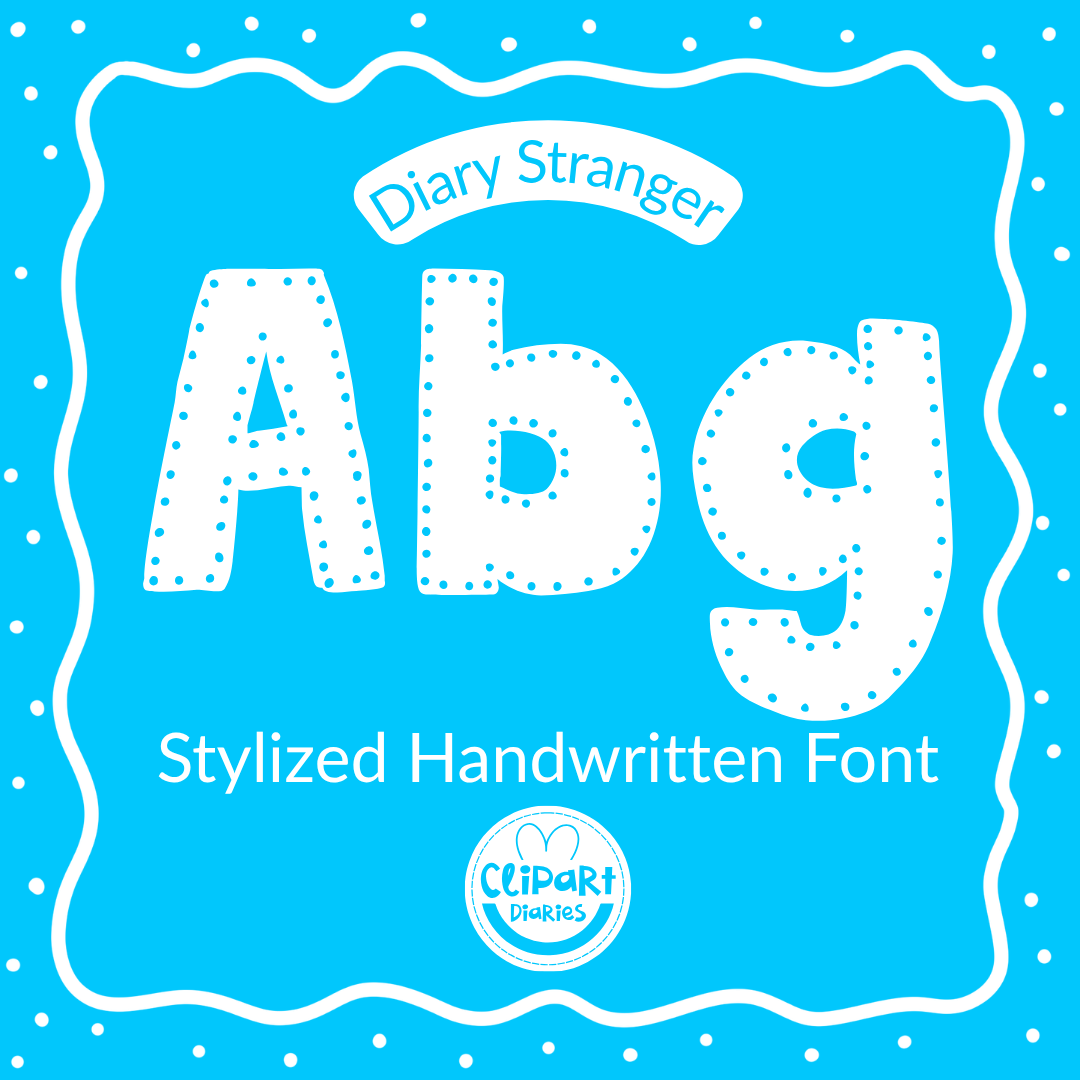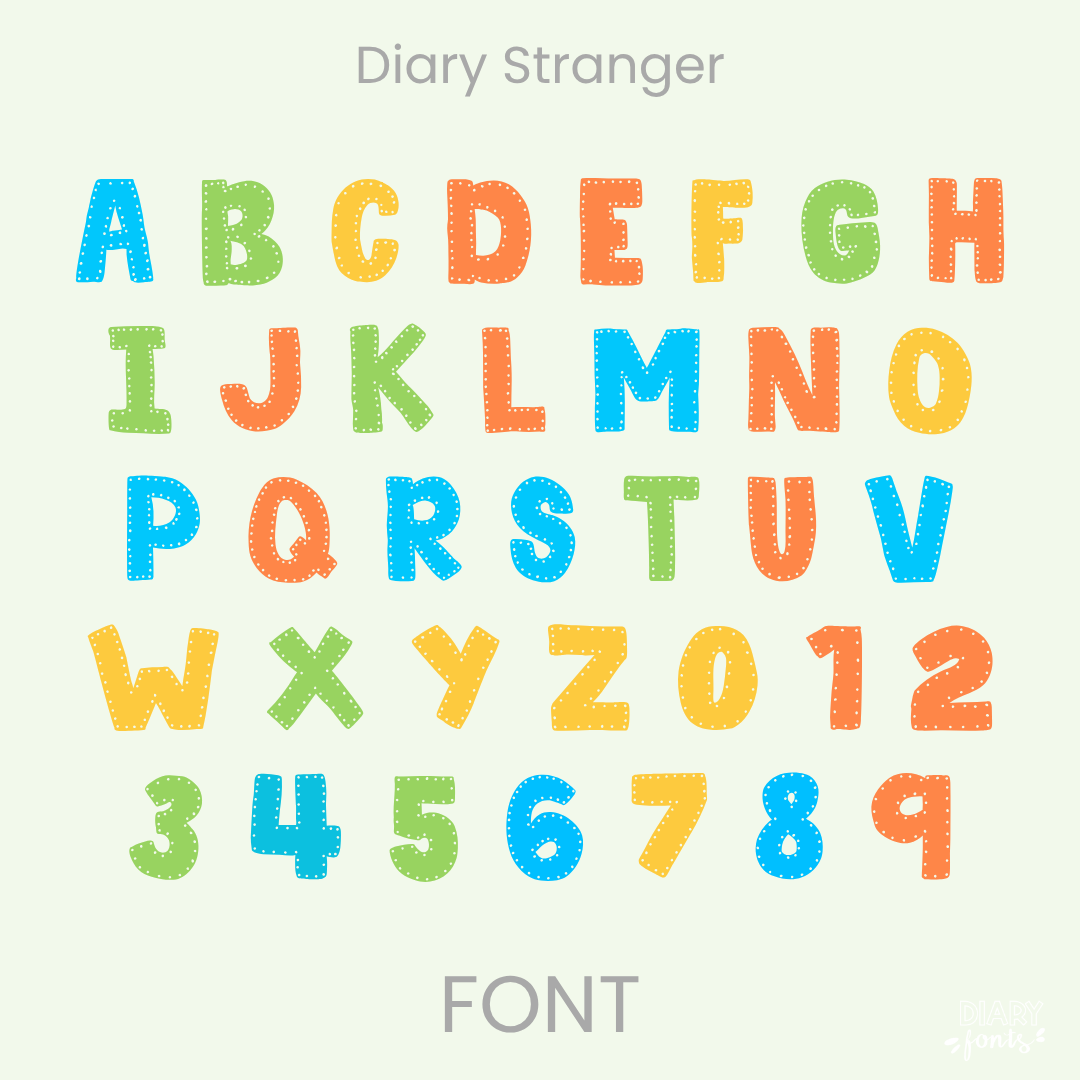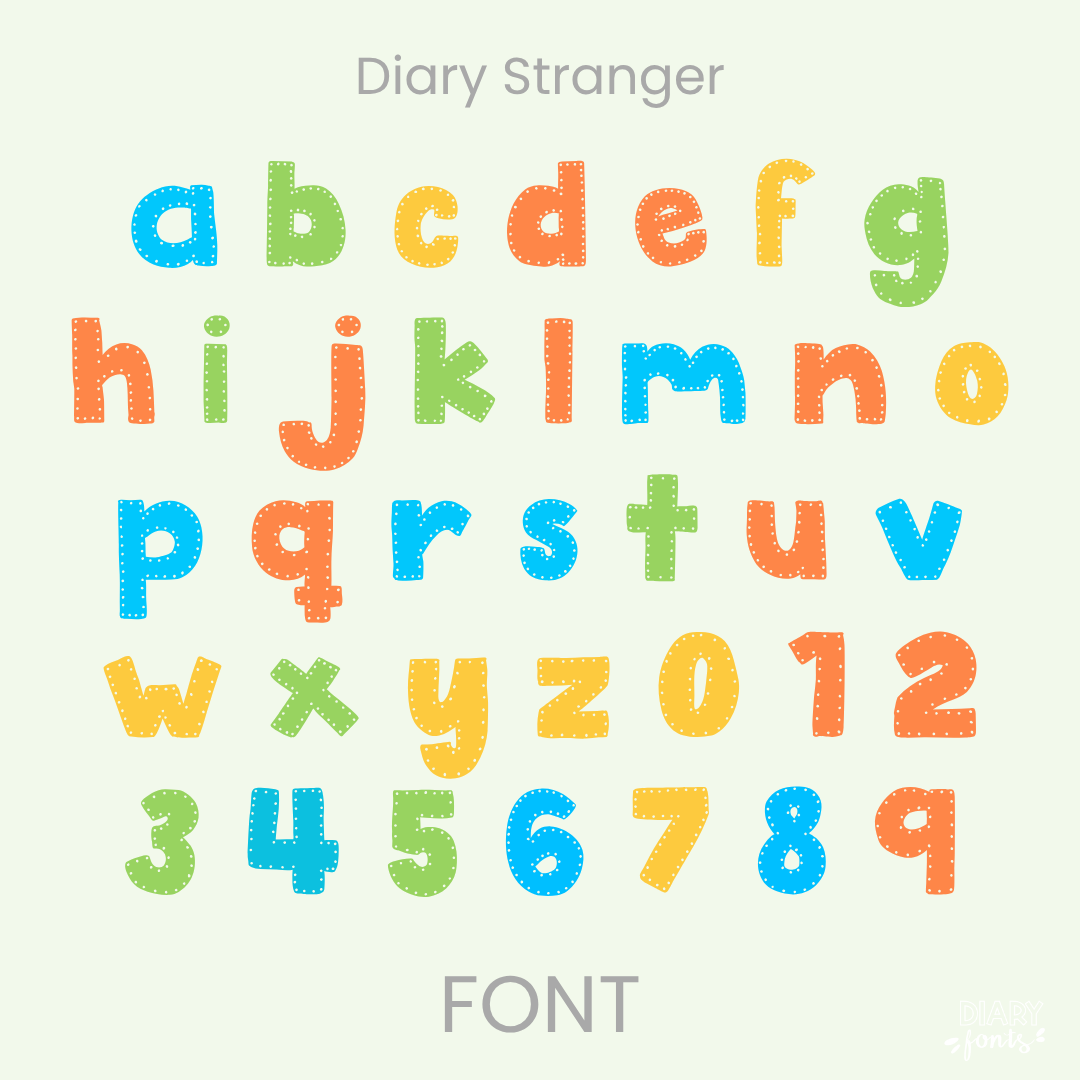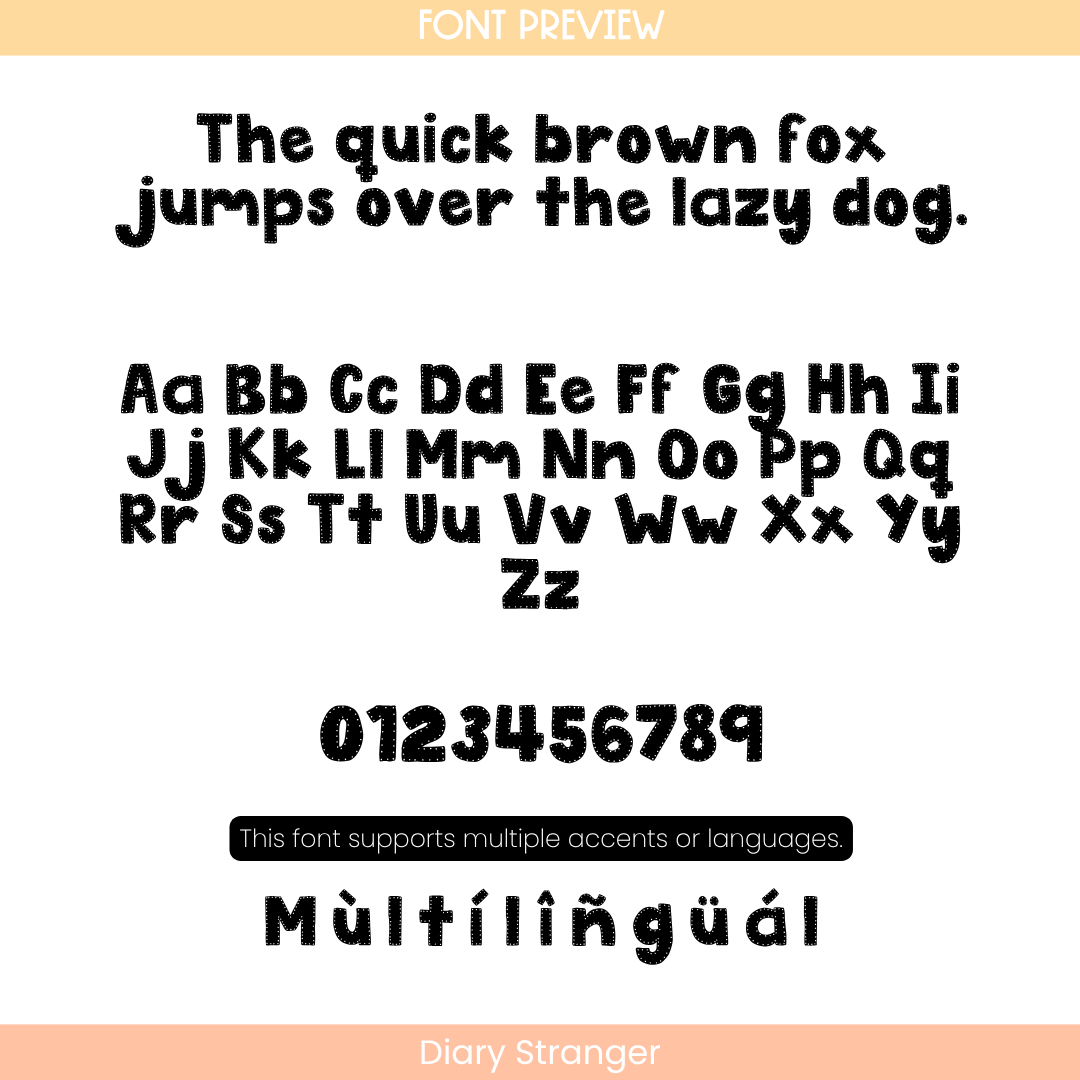
If you’ve been looking for a unique decorative font that packs a major punch while keeping your layouts looking incredibly organized, Diary Stranger is about to become your new absolute favorite. This playful display font features thick, heavy-weighted letterforms detailed with a sweet, hand-drawn dotted stitch pattern running all along the inner border of each character. Standing tall and confident straight along the baseline, its chunky design completely cuts right through the background clutter, making your headings exceptionally clear and legible worksheet typography for your sweet students.
It is an absolute dream choice for designing high-impact bulletin boards, bold presentation slide titles, custom subject covers, and adorable primary classroom labels where you want a cozy, modern vibe. Inside the download, you’ll get a full set of thick patterned uppercase and lowercase print letters, solid matching numbers, and multi-accent marks for complete multilingual support. It drops right into Canva, MS Office, or Adobe on your desktop, and pairs beautifully with Procreate and GoodNotes on your iPad. Whether you’re prepping daily activities for your own sweet classroom or designing a fresh new commercial-use product line for your online teacher shop, this chunky display heading font adds a touch of confident, friendly style to your toolkit.